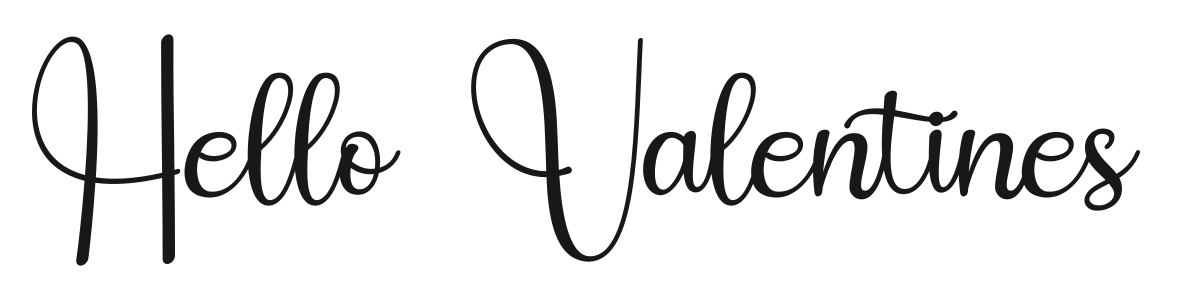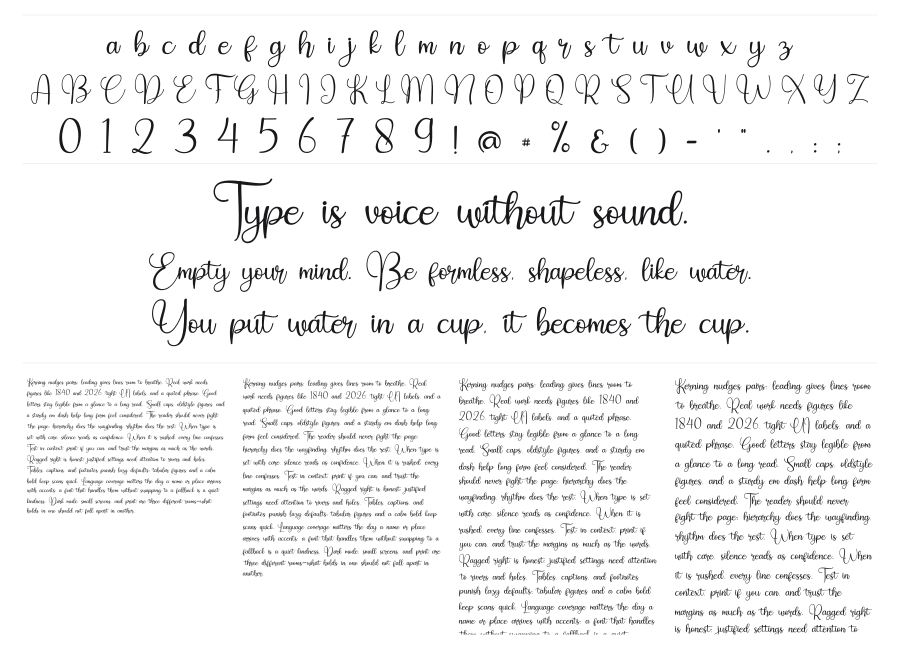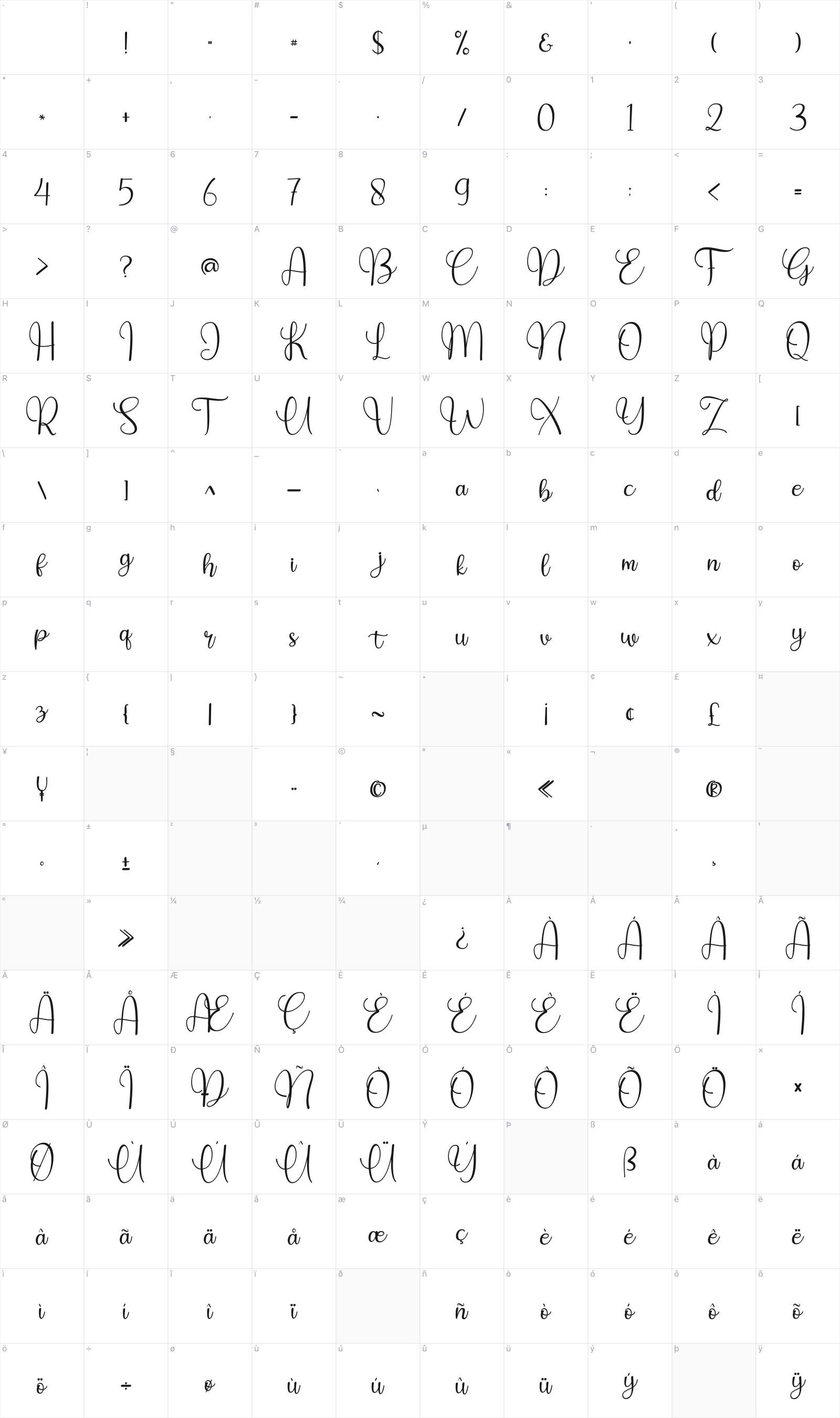
Hello Valentines
Hello Valentines is a bubbly casual script with flowing connections and expressive looped terminals. Its bouncy baseline rhythm and generous curves give it a festive, handcrafted energy that reads immediately as warm and celebratory. Well-suited to greeting cards, product packaging, and any project that needs a personal, romantic touch.